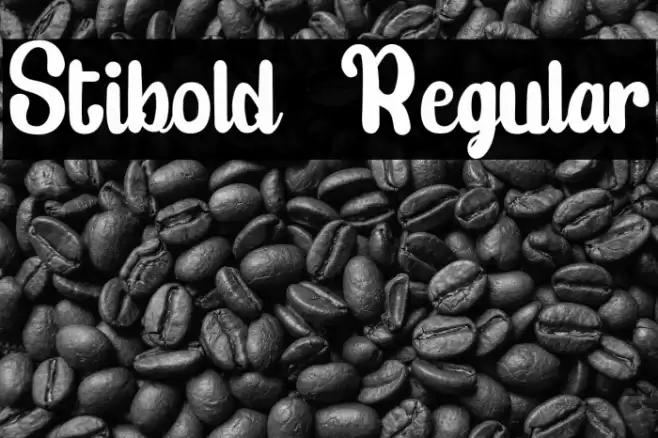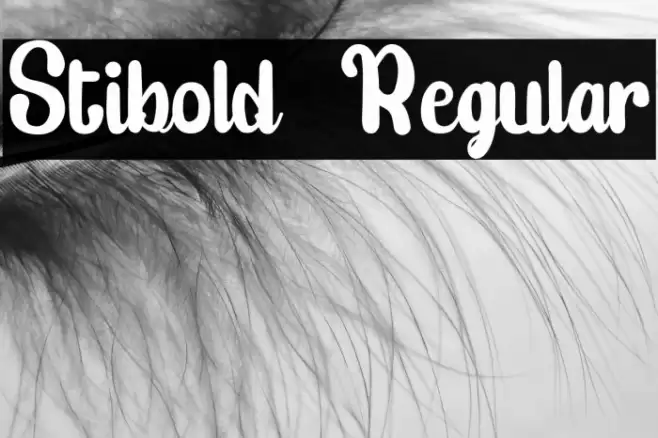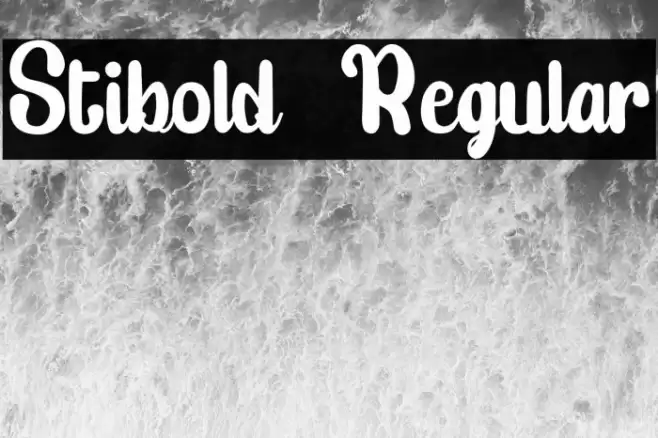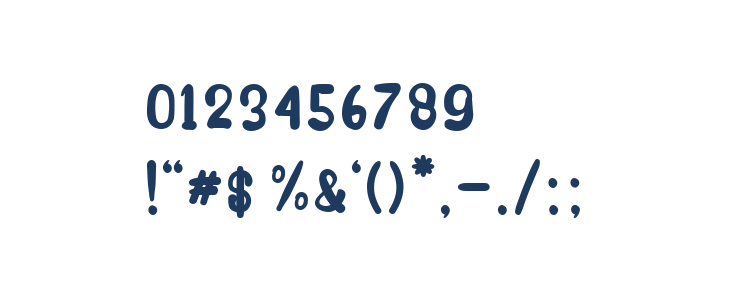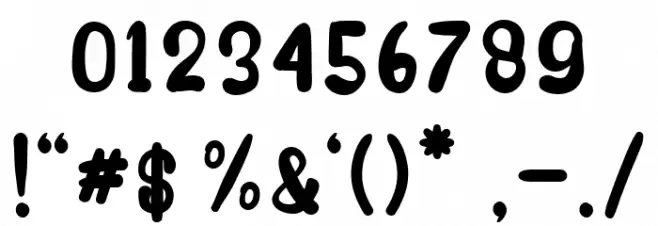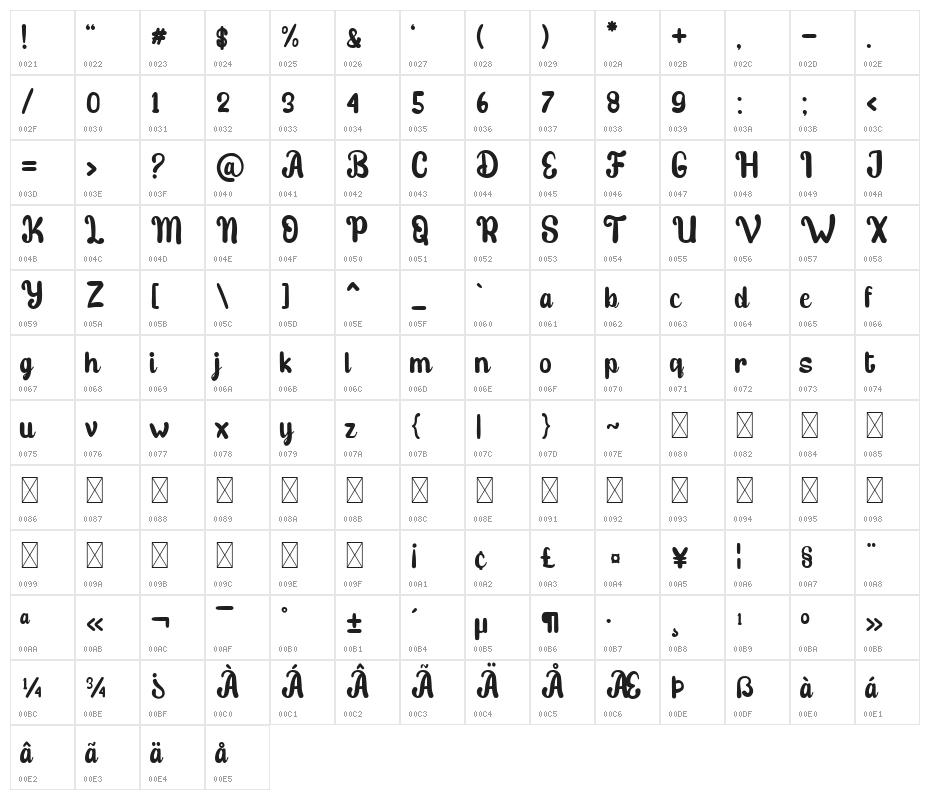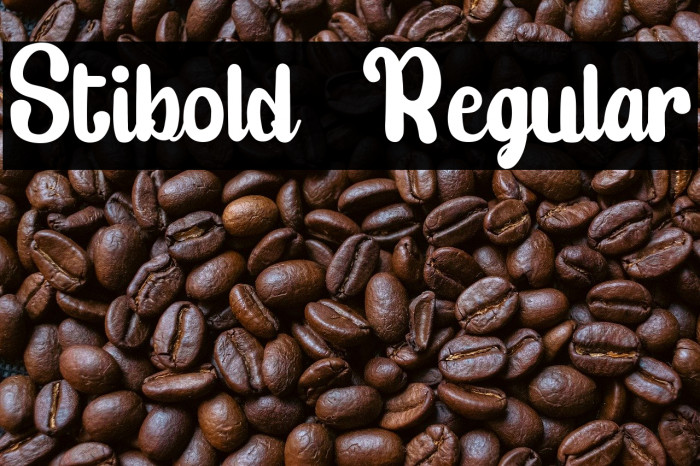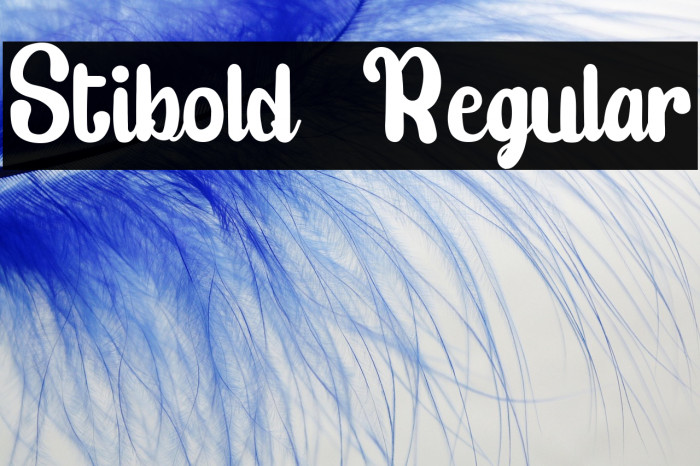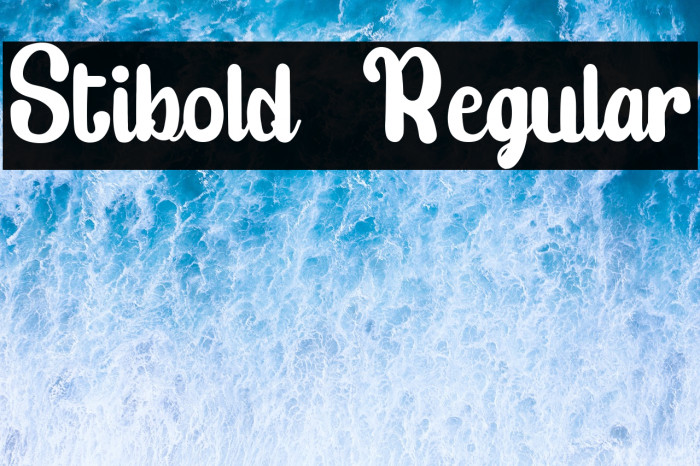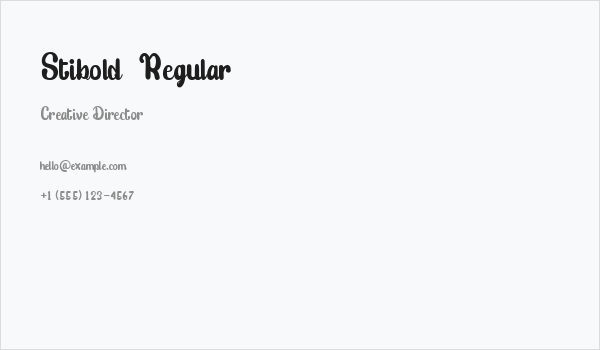
Stibold Regular Font
Stibold Regular Description
This font features a playful and bold design with rounded, flowing characters that exude a sense of fun and creativity. The uppercase letters maintain a consistent height, while the lowercase letters have a slightly whimsical touch with their curved lines and loops. The numbers are clear and bold, matching the overall style of the alphabet. Special characters are designed with the same playful flair, making them stand out. The font's thick strokes and rounded edges give it a friendly and approachable appearance, suitable for projects that require a touch of personality and charm.
A playful, bold font with rounded, flowing characters and a whimsical touch from Regular fonts.
- Proposed Projects: Ideal for children's books, playful branding, greeting cards, and creative posters.
- Overall Style: Playful, Creative